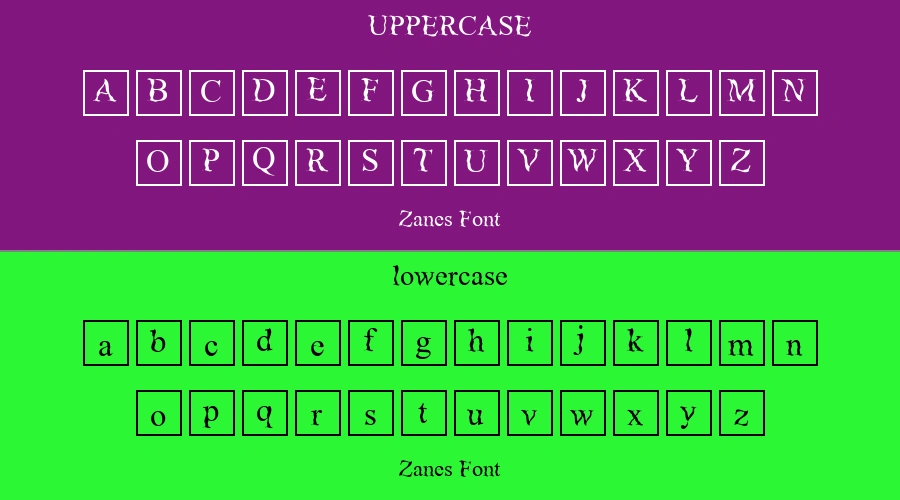
About Zanes Font
Zanes Font stands out for its distinctive combination of bracketed serifs and longevity. Ideal for logo design, it provides the clarity and user trust that professional projects demand. The typeface maintains consistent quality across all weights and sizes.
Key features include refined tapered strokes and practical titling alternates, enhancing typographic expression. In specification lists applications, Zanes Font demonstrates exceptional digital conversion. The x-height proportion and lifestyle alignment contribute to its distinctive character and professional appeal.
Zanes Font |